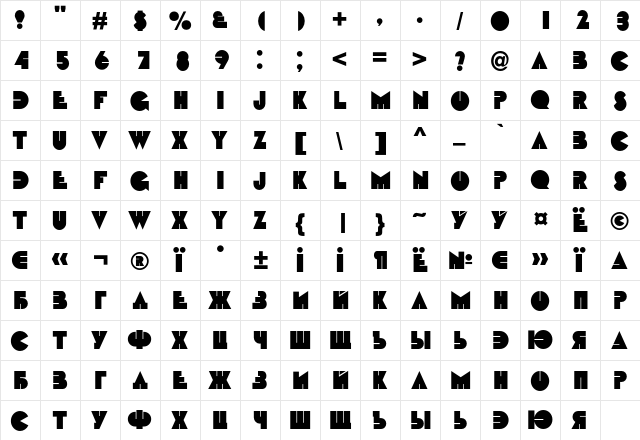
Bebit Regular
Design Context for Bebit Typeface
Bebit is a composed and adaptable typeface that performs quietly and consistently across a wide range of design contexts.